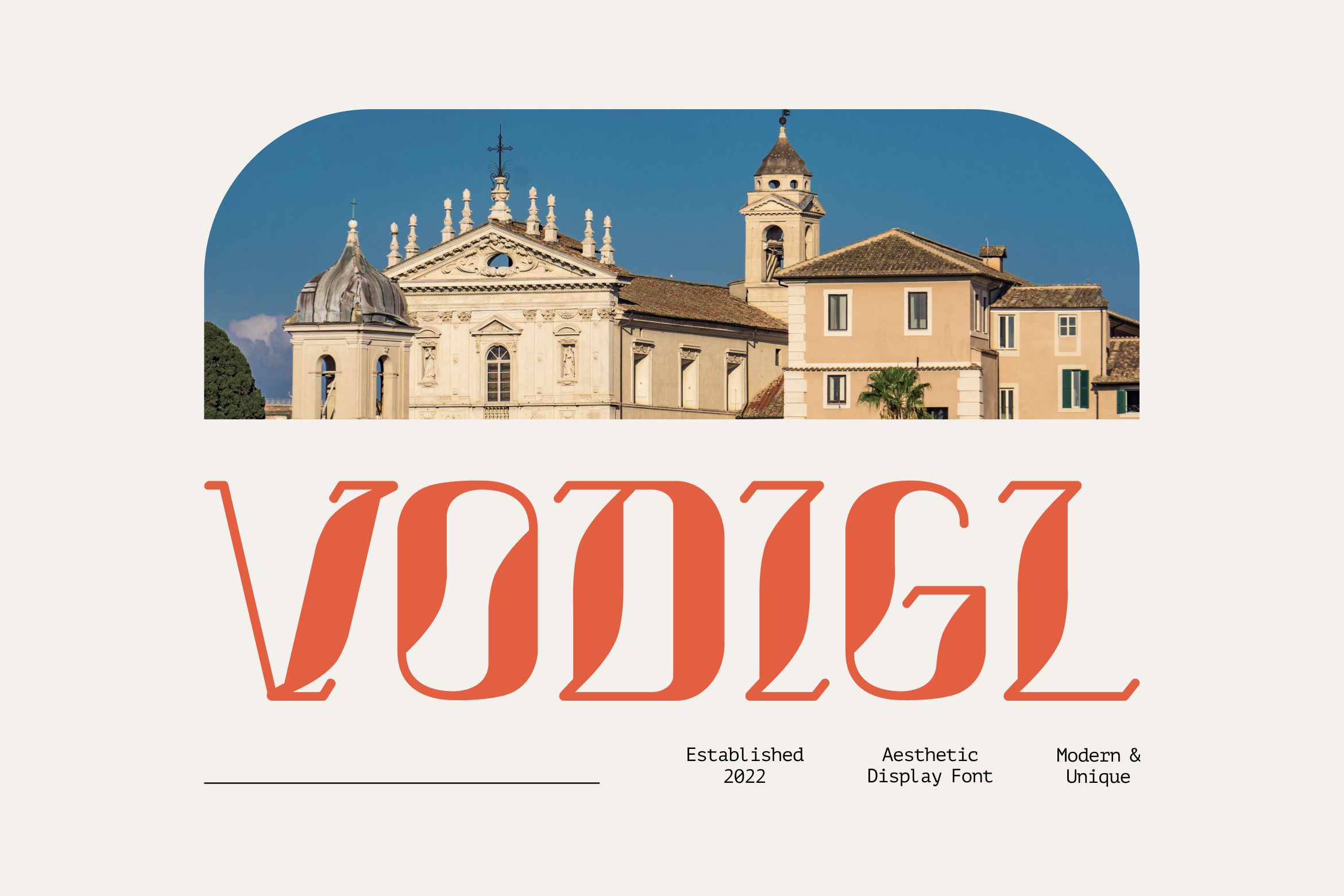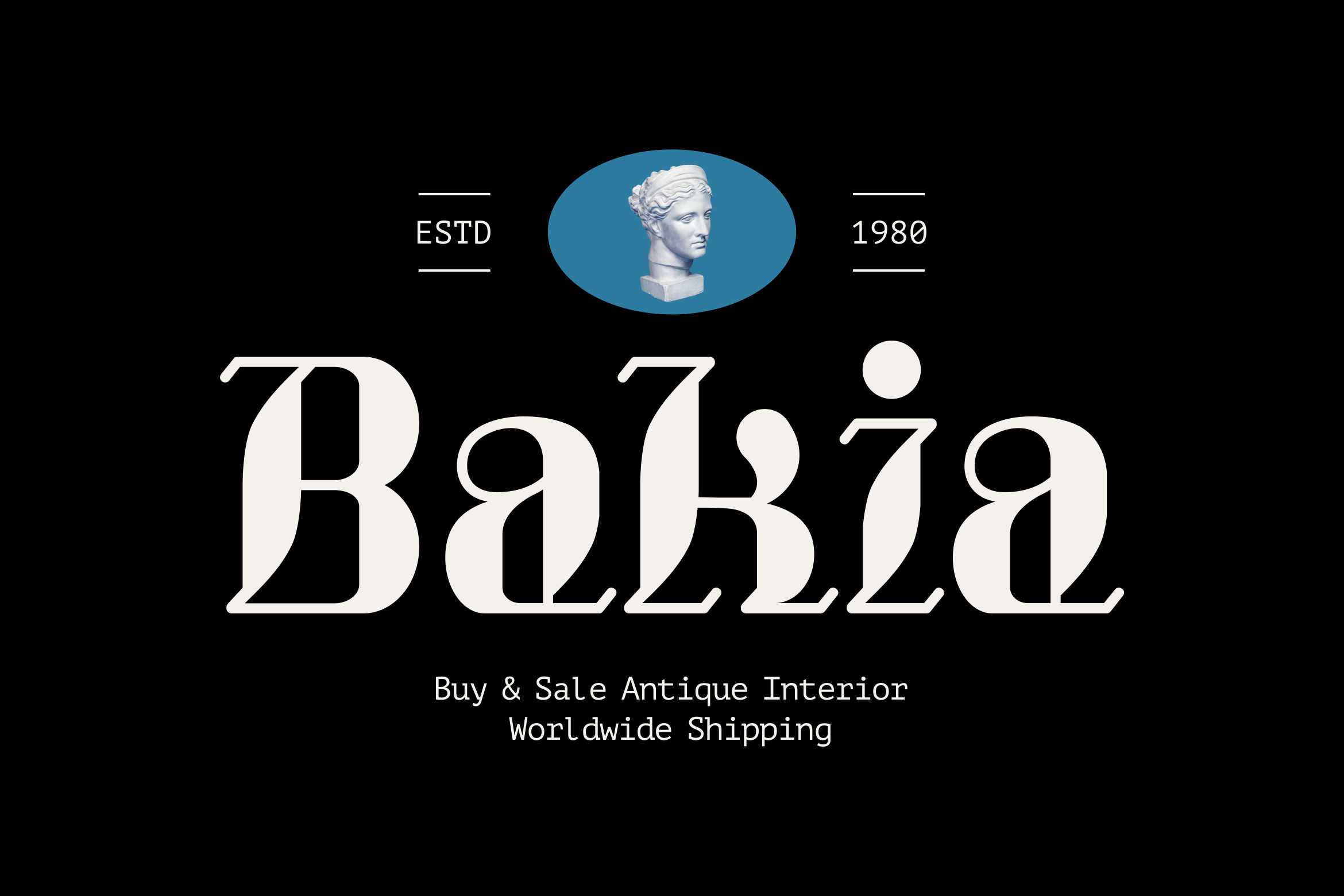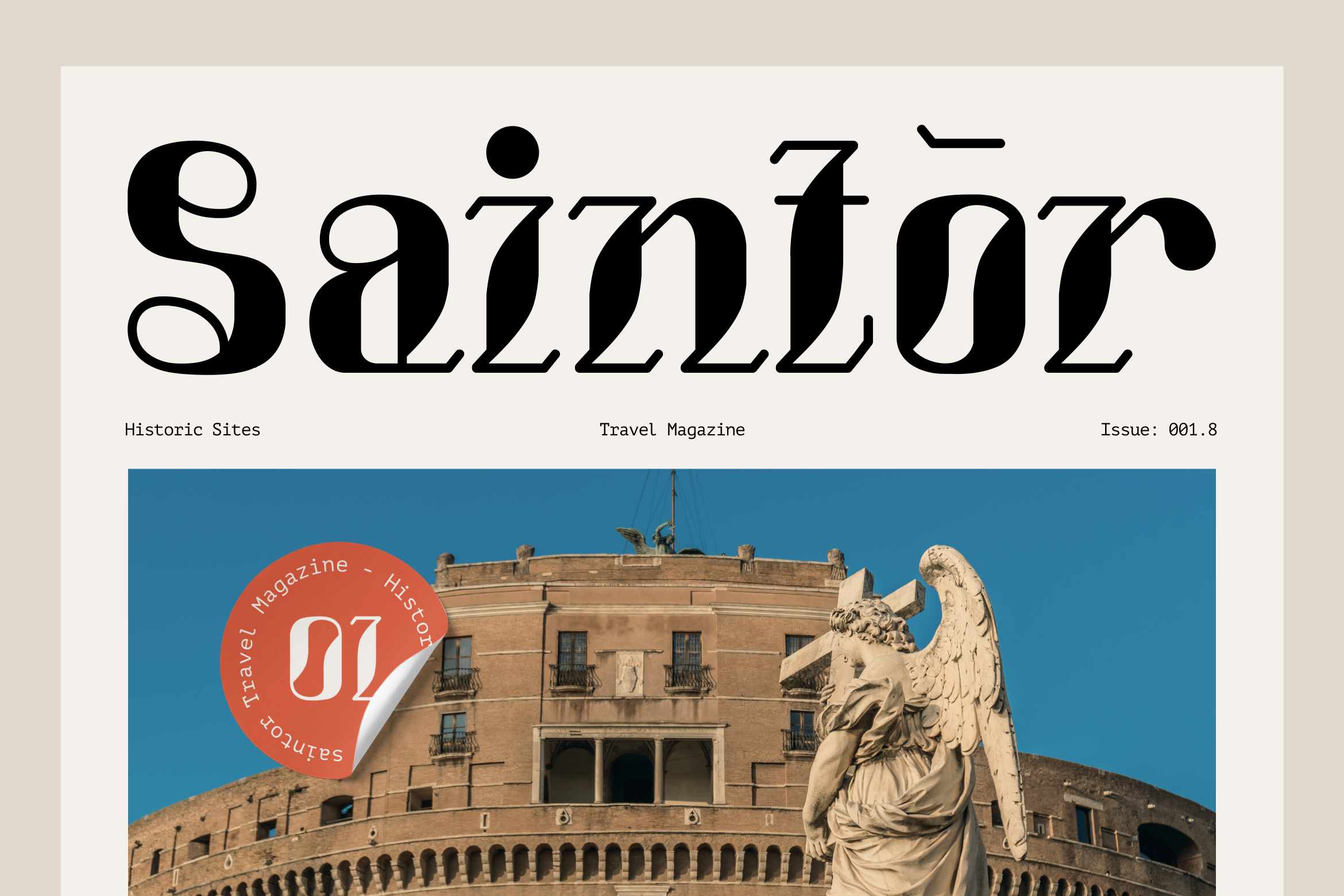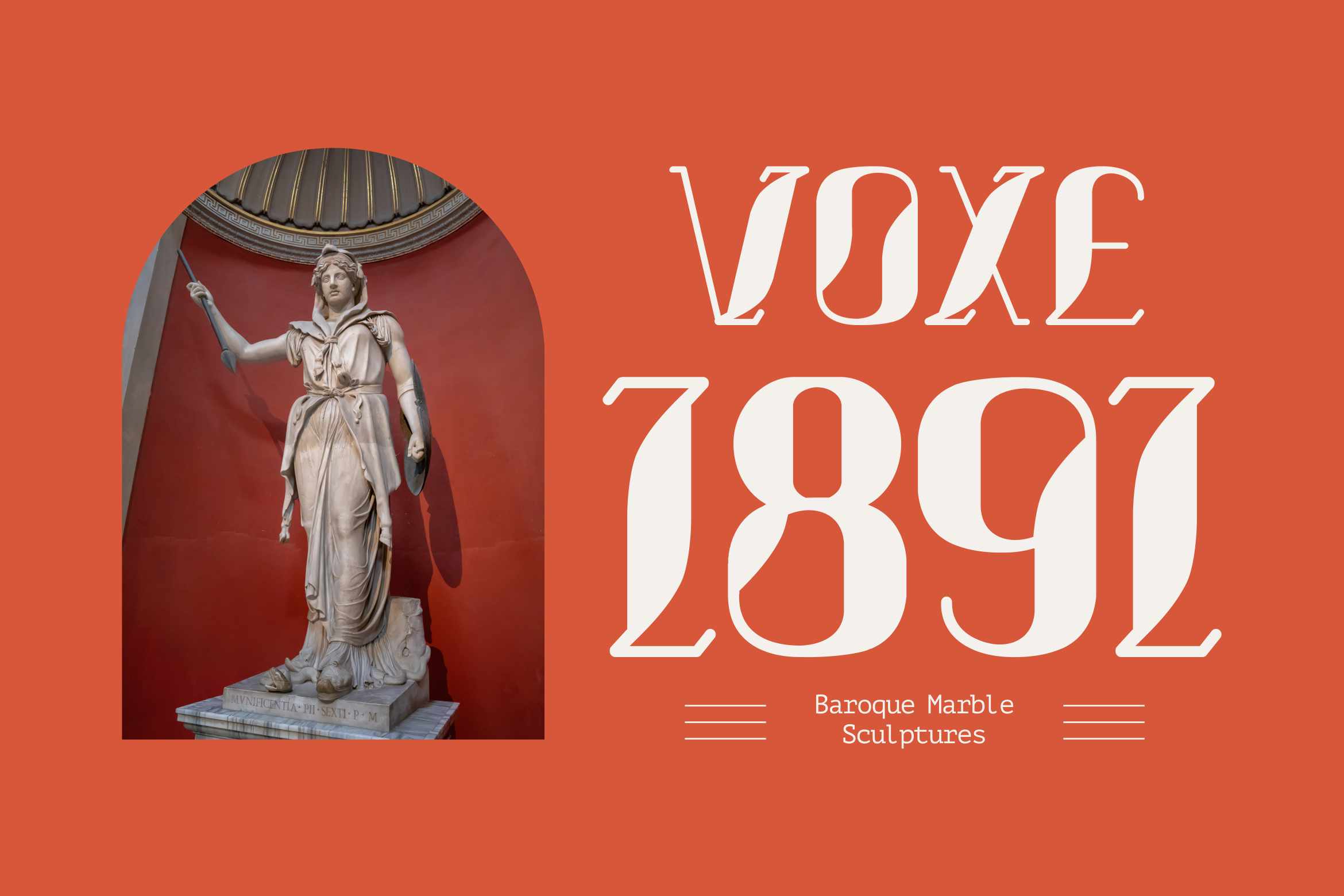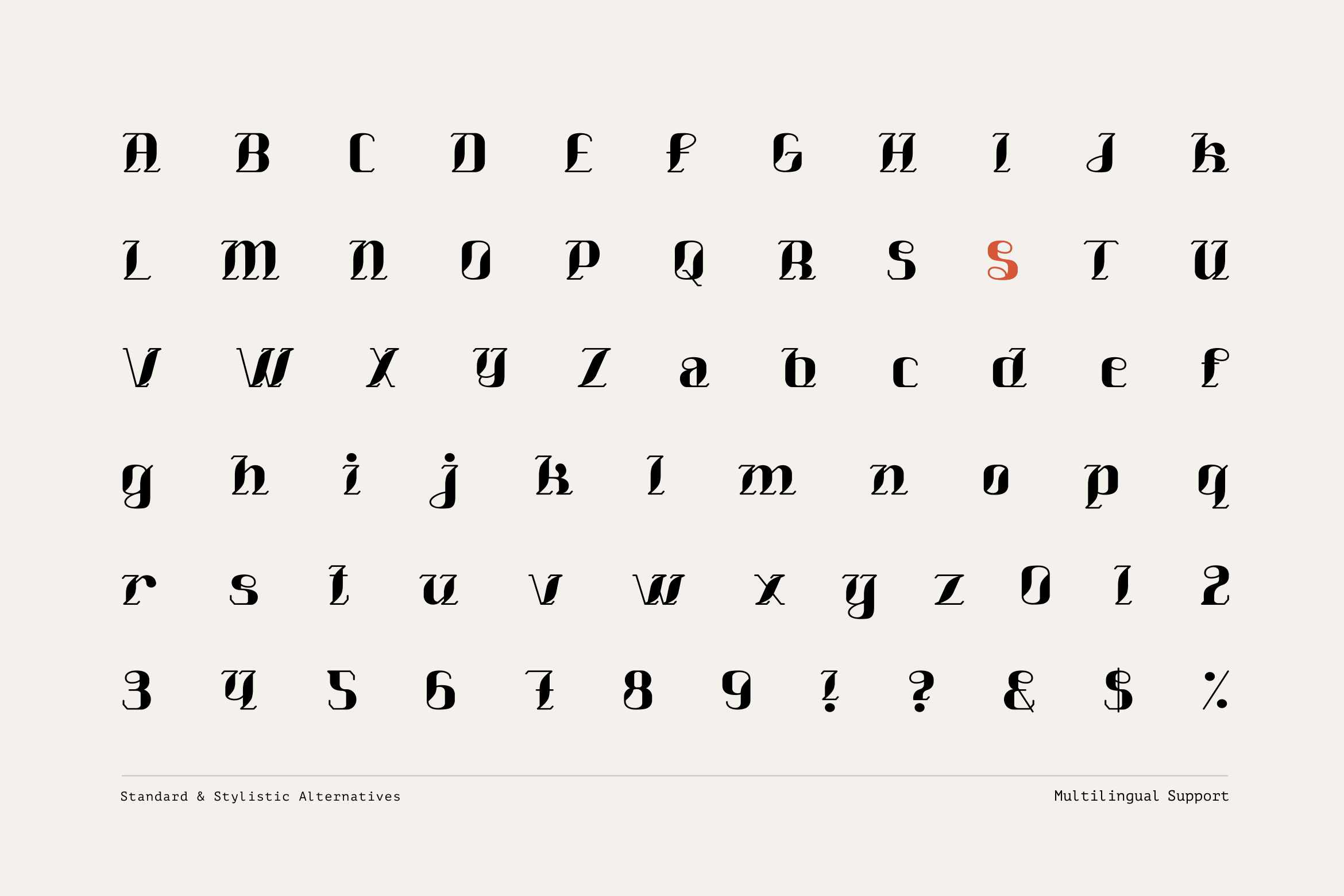
Vodigl is a bold and expressive display serif font that merges classic elegance with a contemporary twist. Its signature style lies in the contrast between sharp, calligraphic strokes and soft, curving inner forms, creating a dynamic rhythm in every letter. The font evokes a sense of historical richness while remaining modern, making it a perfect choice for projects that balance tradition with innovation—such as magazine headlines, branding for antique stores, or upscale travel publications.
Designed with stylistic alternates and multilingual support, Vodigl empowers designers to create layouts with distinctive character and international appeal. The refined details and graceful curves bring a sculptural quality to text, ideal for editorial use, logos, packaging, or signage that aims to feel cultured, stylish, and unique. Vodigl is not just a font—it’s a typographic identity.
Vodigl